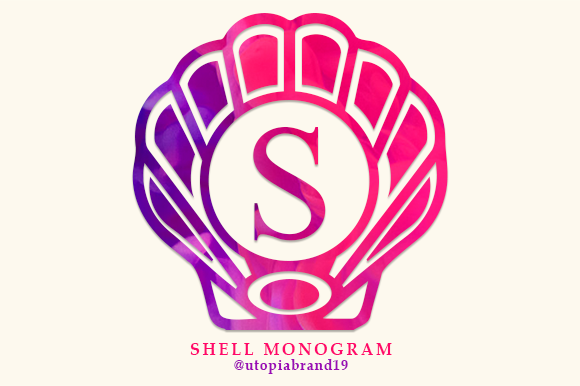
Delve into the realm of timeless elegance with Shell Monogram Font, an enchanting creation crafted by the visionary hands of utopiabrand19. Step into a world of delicate beauty, where every letter dances with grace and sophistication, captivating your audience with an allure that transcends time. This decorative font embodies the essence of refinement, inviting you to express your creativity in ways that touch the heart and ignite the imagination.
Picture this: a collection of stunning wedding invitations, designed with the Shell Monogram Font. Each invitation becomes a masterpiece, exuding a romantic aura that reflects the love and joy of your special day. As your guests hold these invitations in their hands, they're captivated by the intricate details, the harmonious flow of the letters, and the exquisite charm that radiates from every word.
Envision yourself creating exquisite stationary art, adorned with the Shell Monogram Font. Your words transform into works of art, imbued with a timeless quality that speaks to the soul. Whether it's a heartfelt letter, a personal journal, or a treasured family recipe, each piece becomes a cherished keepsake, holding memories and emotions that last a lifetime.
Step into the digital world and let the Shell Monogram Font ignite your creativity on social media. Your posts become captivating, drawing your followers into a world of beauty and inspiration. Embrace the endless possibilities of self-expression, as your words dance across the screen, leaving an indelible mark on the hearts of those who encounter them.
Imagine crafting heartfelt greeting cards that are more than just words on paper. With the Shell Monogram Font, your sentiments take on a life of their own, conveying warmth, love, and appreciation in a way that words alone cannot capture. Each card becomes a testament to the bonds you share, a tangible representation of the love that connects you.
The Shell Monogram Font isn't just a font; it's an invitation to embark on a creative journey, to let your artistry flourish, and to make a statement that resonates with your audience. It's the perfect choice for designers, artists, and anyone who seeks to elevate their designs with a touch of timeless elegance.
With the Shell Monogram Font at your fingertips, the possibilities are endless. Unleash your creativity, embrace the allure of beauty, and let your words and designs leave a lasting impression on the world.